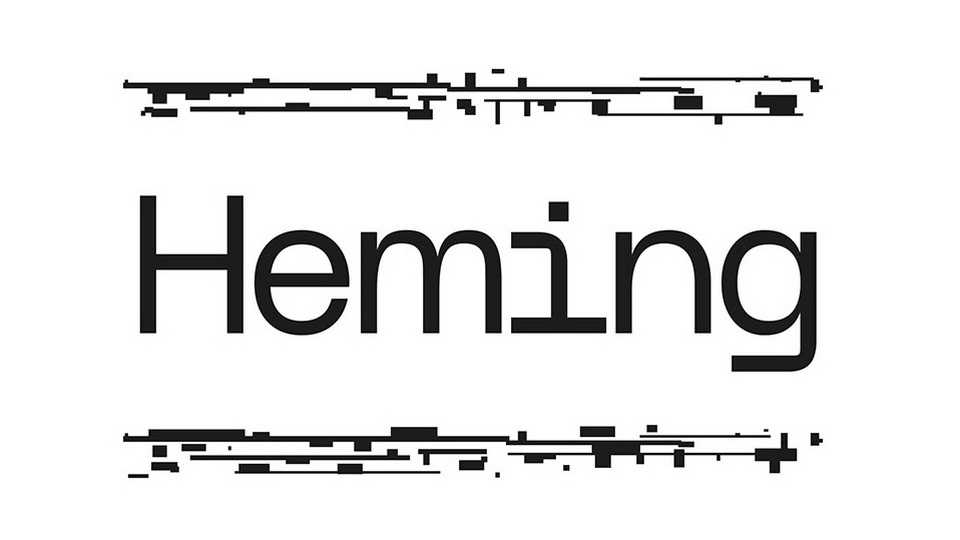
Download Heming font, a modern looking, monotype style typeface. Heming has a variable feature to allow for even more weights for any use.
Designer: Ádám Görzsöny